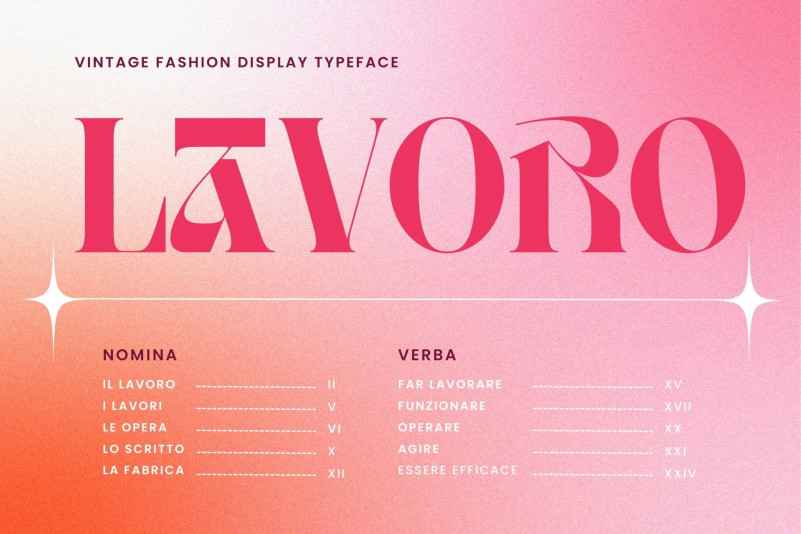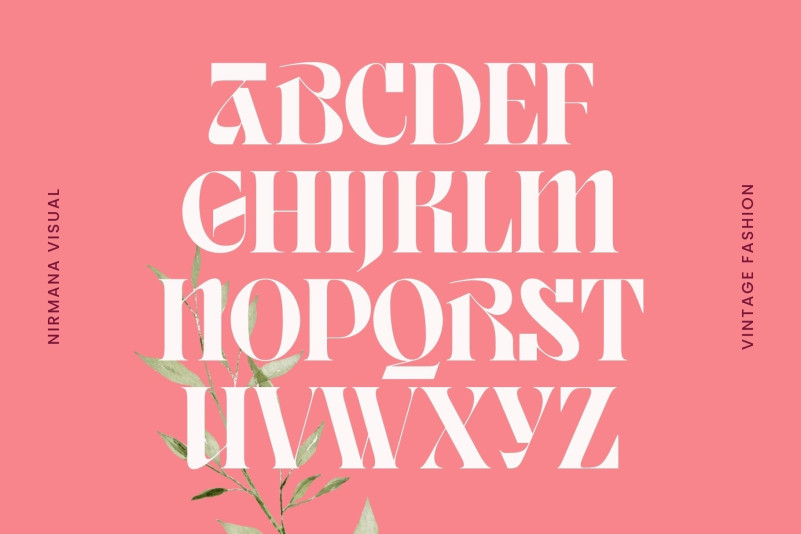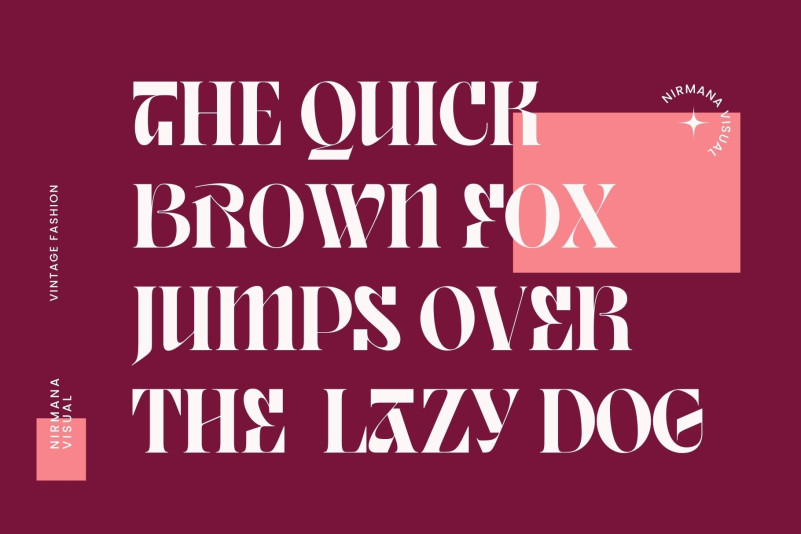
Vintage Fashion Font
Vintage Fashion Font, This font is perfect for stickers, retro projects, craft projects, shirts, svg designs, procreate designs, branding, blogs, logos, invitations and more!